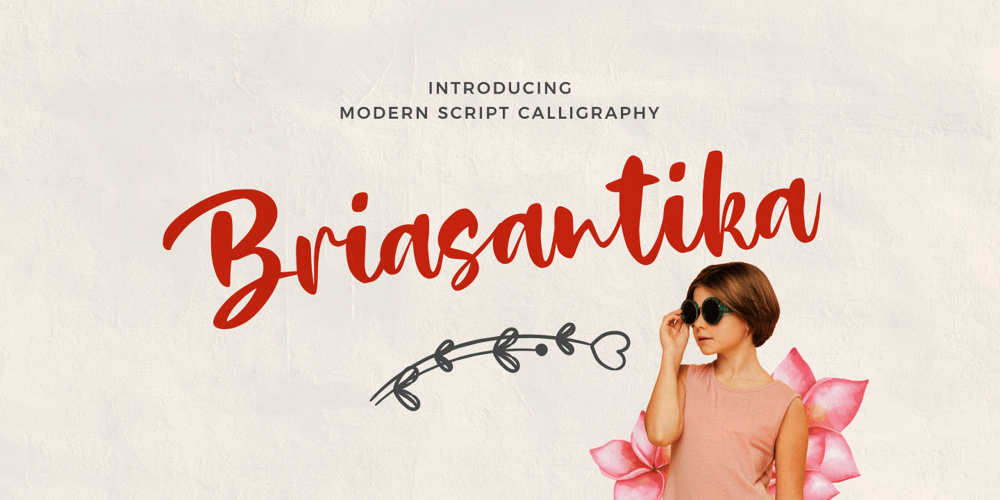
Briasantika
Briasantika font
Briasantika Font Family was designed by Abdullah and published by Brithos Type. Briasantika contains 1 styles and family package options. Briasantika is a cursive and natural handwritten font. It looks beautiful on a variety of designs requiring a personalized style, such as wedding invitations, thank you cards, posters, flyer, greeting cards, logos and so on.